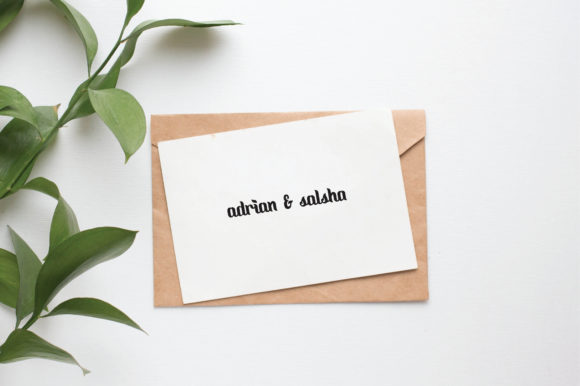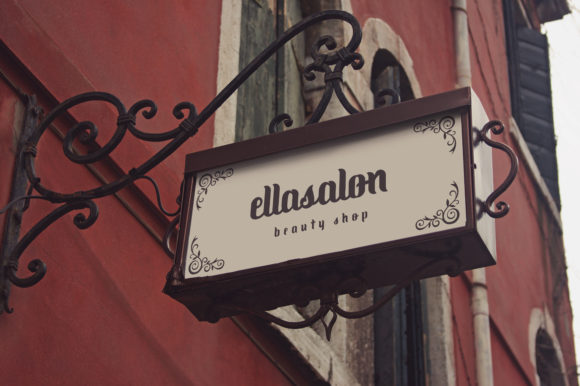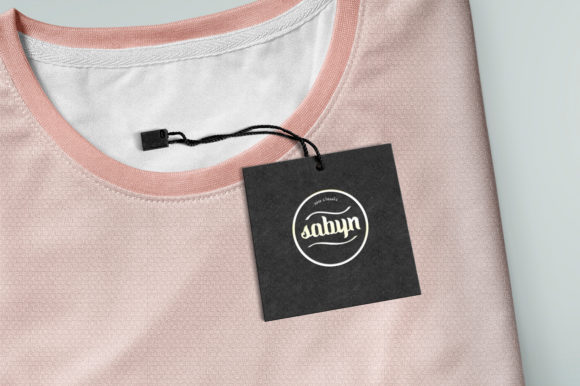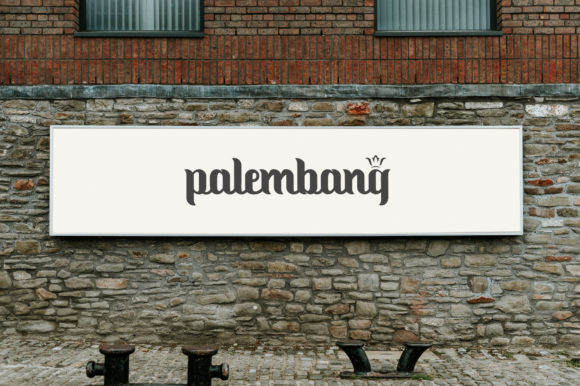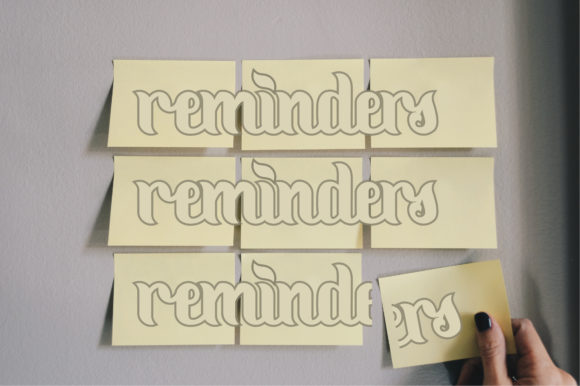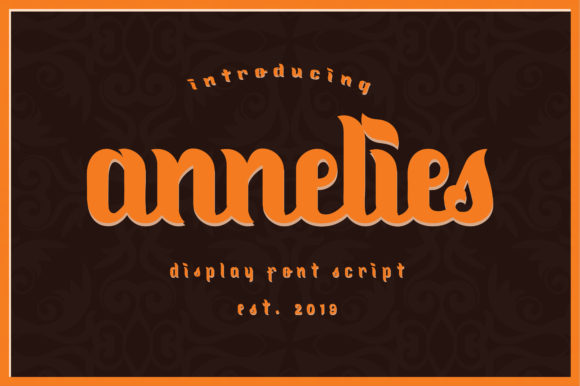
Introducing Annelies Font: A Bold and Versatile Display Font
Are you looking for a font that can add a touch of excitement and personality to your design projects? Look no further than Annelies Font, a stunning display font that is sure to make a statement. With its intense character and two unique styles, Annelies is the perfect choice for a wide range of projects, from branding and advertising to packaging and crafting.
What is Annelies Font?
Annelies Font is a carefully crafted display font that is designed to make a bold impression. Its unique and intricate design makes it perfect for use in headlines, titles, and other display text applications. The font comes in two styles, allowing you to choose the one that best fits your project’s tone and style.
Key Features of Annelies Font
- Two Unique Styles: Annelies Font comes in two distinct styles, giving you the flexibility to choose the one that best suits your project’s needs.
- Intense Character: The font’s bold and intricate design makes it perfect for creating eye-catching headlines and titles.
- Highly Versatile: Annelies Font can be used in a wide range of projects, from branding and advertising to packaging and crafting.
- Easily Readable: Despite its bold design, Annelies Font is surprisingly easy to read, making it perfect for use in both digital and print applications.
Who is Annelies Font Suitable For?
Annelies Font is perfect for a variety of designers and crafters, including:
- Graphic Designers: Whether you’re working on a branding project, creating a logo, or designing a brochure, Annelies Font is a great choice.
- Crafters: If you’re creating handmade cards, gift tags, or other paper crafts, Annelies Font can add a touch of personality and whimsy to your projects.
- Advertising Agencies: Annelies Font’s bold and eye-catching design makes it perfect for use in advertising campaigns.
- Small Business Owners: If you’re looking for a font that can help your brand stand out, Annelies Font is a great choice.
Here are a few tips for getting the most out of Annelies Font:
- Use it as a Headline Font: Annelies Font is perfect for use in headlines and titles. Its bold design makes it easy to read and understand.
- Experiment with Different Colors: Annelies Font looks great in a variety of colors. Experiment with different colors to find the one that best fits your project’s tone and style.
- Pair it with Other Fonts: Annelies Font can be paired with other fonts to create a unique and interesting look.
Annelies Font is an exciting display font that is sure to add a touch of personality and whimsy to your design projects. With its intense character and two unique styles, it’s perfect for a wide range of projects, from branding and advertising to packaging and crafting. Whether you’re a graphic designer, crafter, or small business owner, Annelies Font is a great choice.